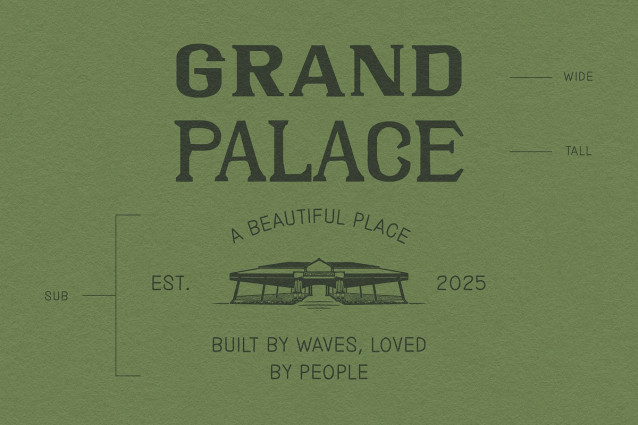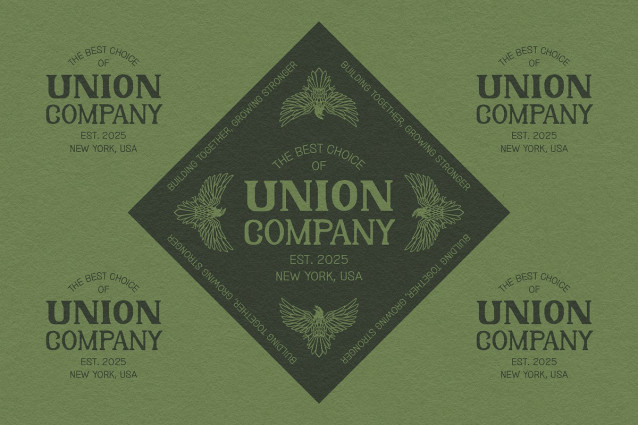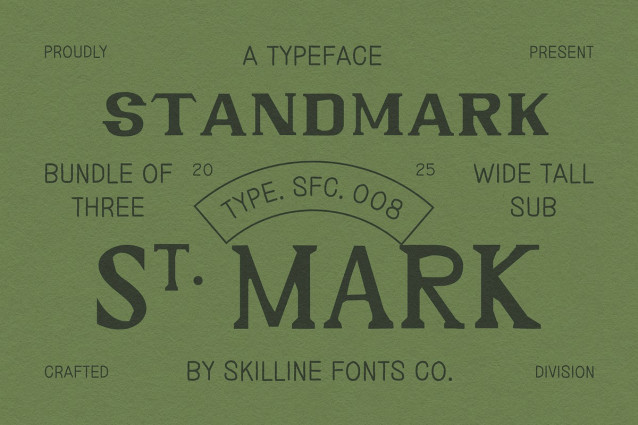
SFC Standmark Tall Font
SFC Standmark Tall Font is a vintage serif font trio crafted with a perfect blend of classic structure and handcrafted detail. Designed to capture the spirit of traditional signage and old-world typography, Standmark brings warmth, sophistication, and versatility to every creative project.
With three distinct styles Tall, Wide and Mono, this typeface adapts effortlessly to various design needs, from bold headlines to elegant subtext. Its subtle serifs and balanced proportions evoke the charm of mid-century craftsmanship while staying clean and modern for today’s designers.
Inspired by classic letterpress and sign painting traditions, Standmark carries the texture of authenticity, strong, grounded, and beautifully legible. Every curve and edge reflects the care of handcrafted design, making it ideal for creatives who value detail and character in their typography